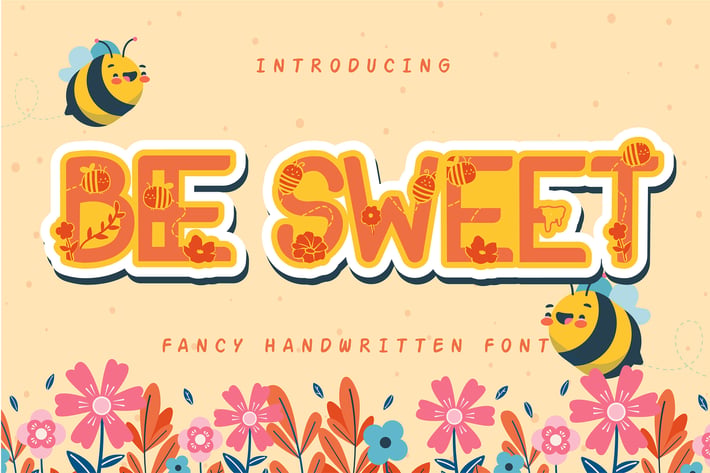
Bee Sweet | Fancy Handwritten Font
Bee Sweet | Fancy Handwritten Font with a calligraphy style, So beautiful on invitation like greeting cards, branding materials, business cards, quotes, posters, and more!